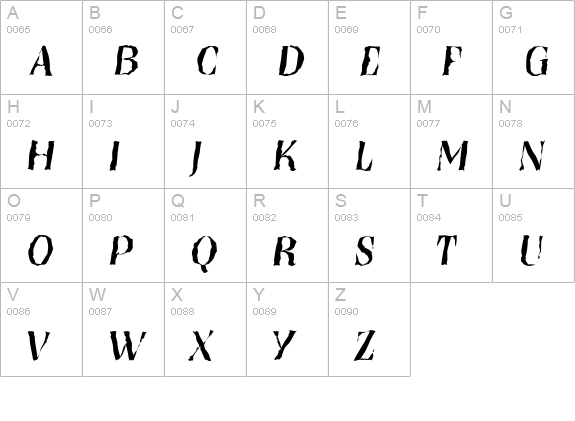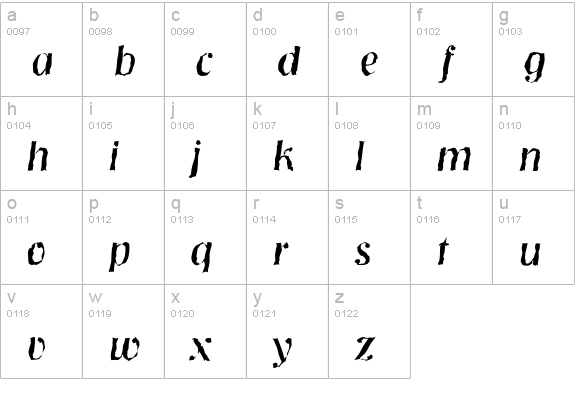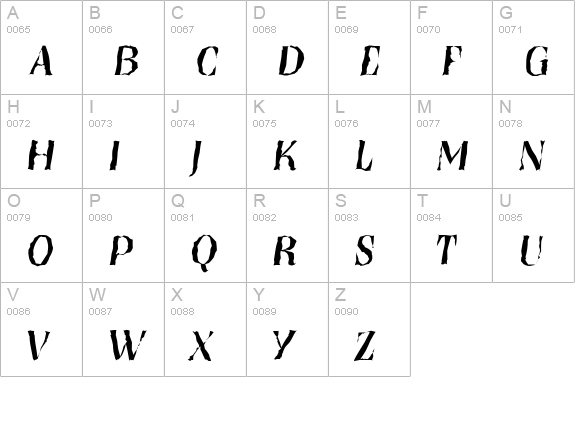
NashvilleRandom-Italic Font Details
NashvilleRandom-Italic is a distinctive, italic variant in the NashvilleRandom typeface family \xE2\x80\x94 well suited to design and typography projects.
Introducing NashvilleRandom-Italic font, a dynamic and modern typeface that exudes creativity and flair. With its unique italic style, this font adds a touch of sophistication to any design project. The randomness of the letterforms gives a playful and spontaneous feel, making it perfect for designs that need a bit of an edge. Best of all, NashvilleRandom-Italic font is available for free download at FontsMarket.com. So whether you're working on a branding project, poster design, or website layout, this font is sure to make a bold statement. Don't miss out on the opportunity to add this versatile and eye-catching font to your collection today!